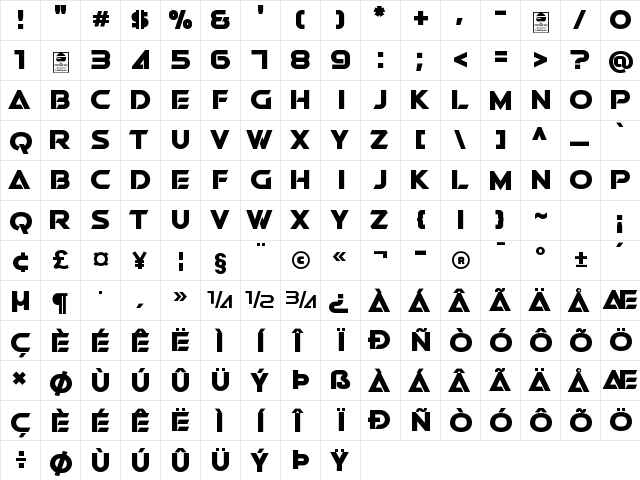
Swera Demo Bold
Design Context for Swera Demo Typeface
Swera Demo takes a measured approach to typography — its balanced proportions and neutral character make it a reliable workhorse for both digital and print work. Its bold stroke weight gives it real presence on the page.